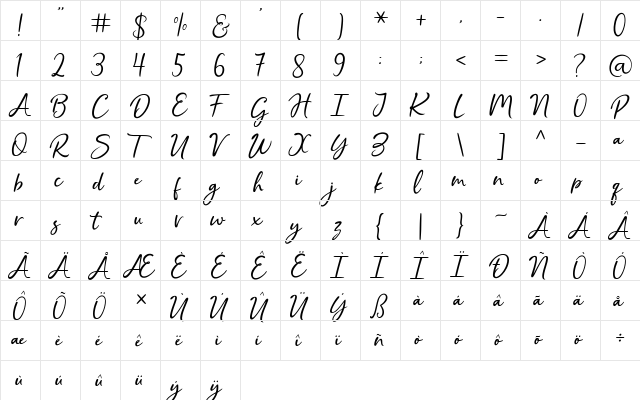
Cristalistic Script Regular
Design Context for Cristalistic Script Typeface
Cristalistic Script flows with the natural rhythm of handwritten lettering, making it ideal for designs that call for warmth and personal expression.
Font Pairing: Combine Cristalistic Script with a simple geometric sans for maximum contrast — the tension between flowing curves and clean structure is a classic typographic pairing.
Pro Tip: Use Cristalistic Script for short runs of text — names, titles, or taglines. Extended body copy in script faces tires the eye quickly.